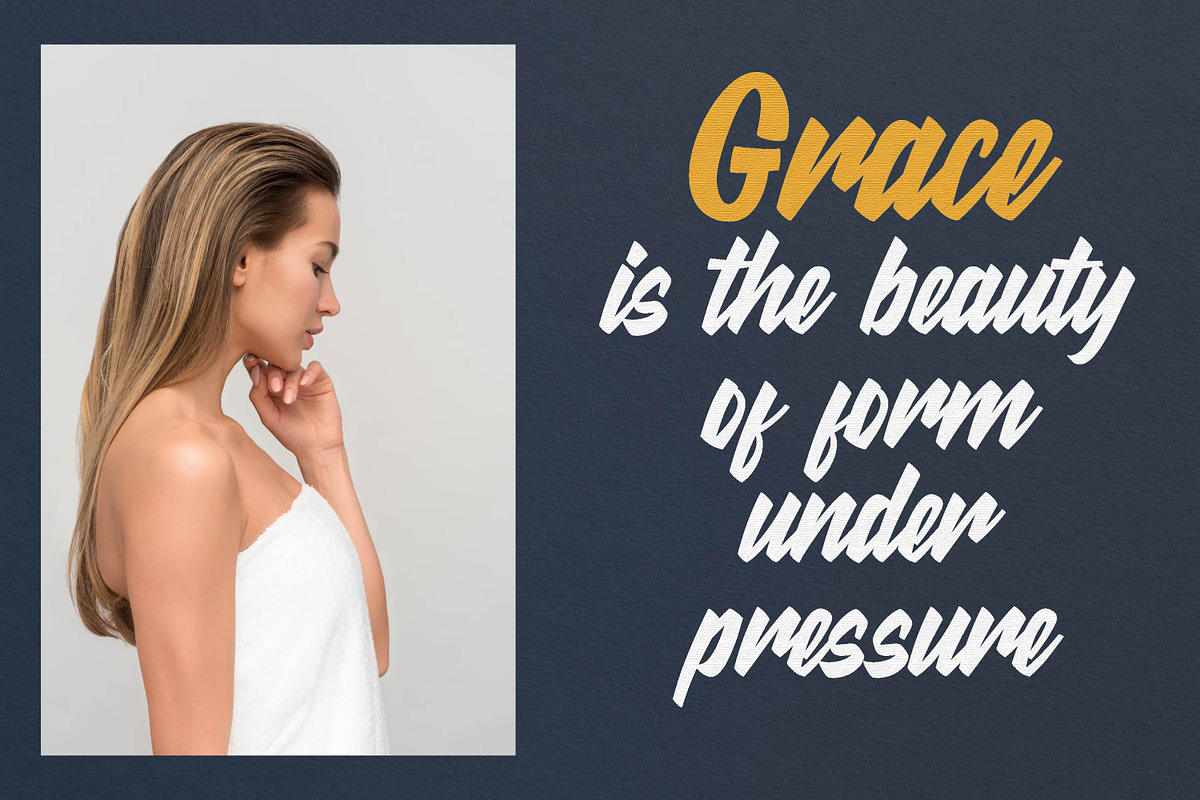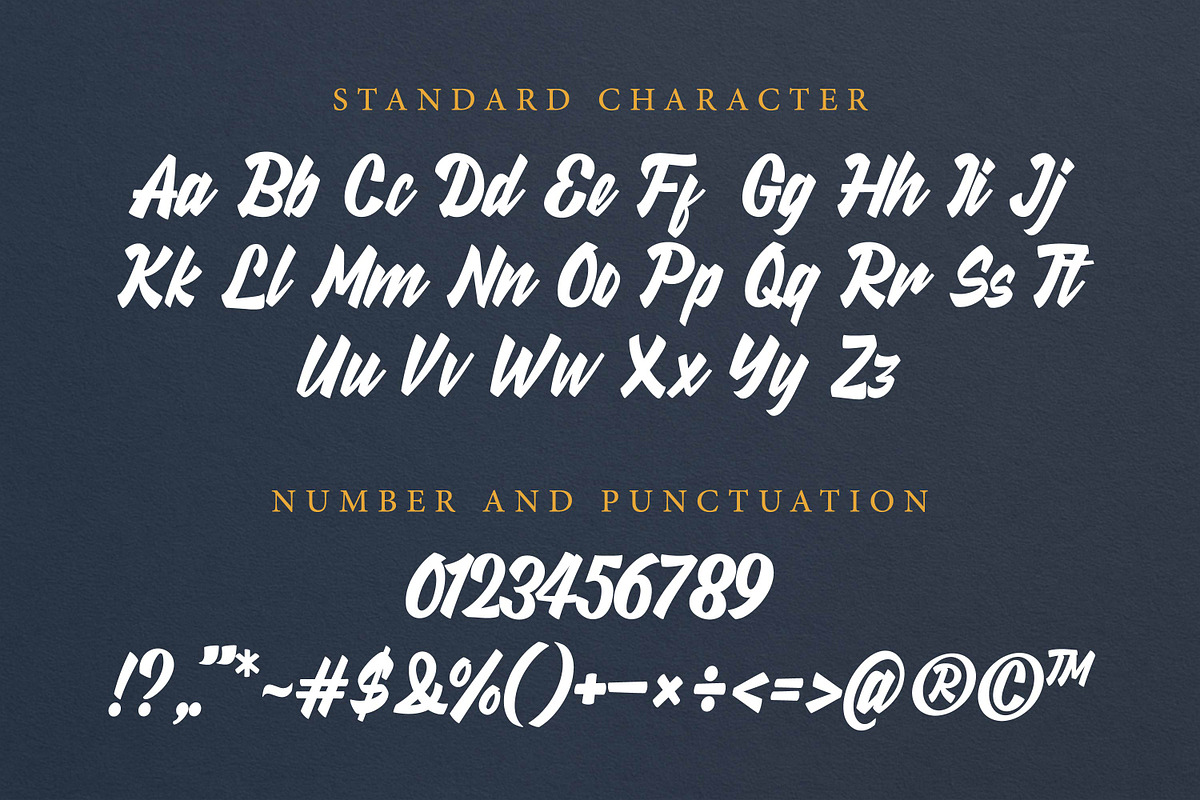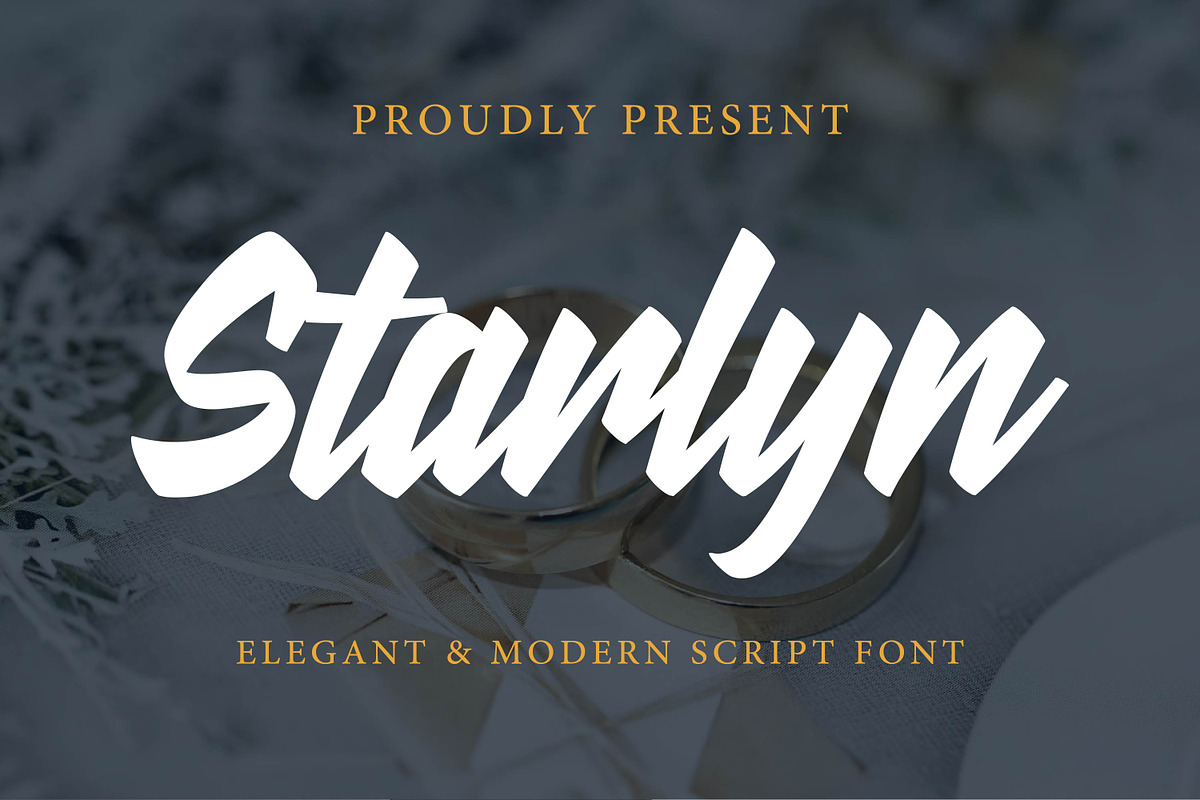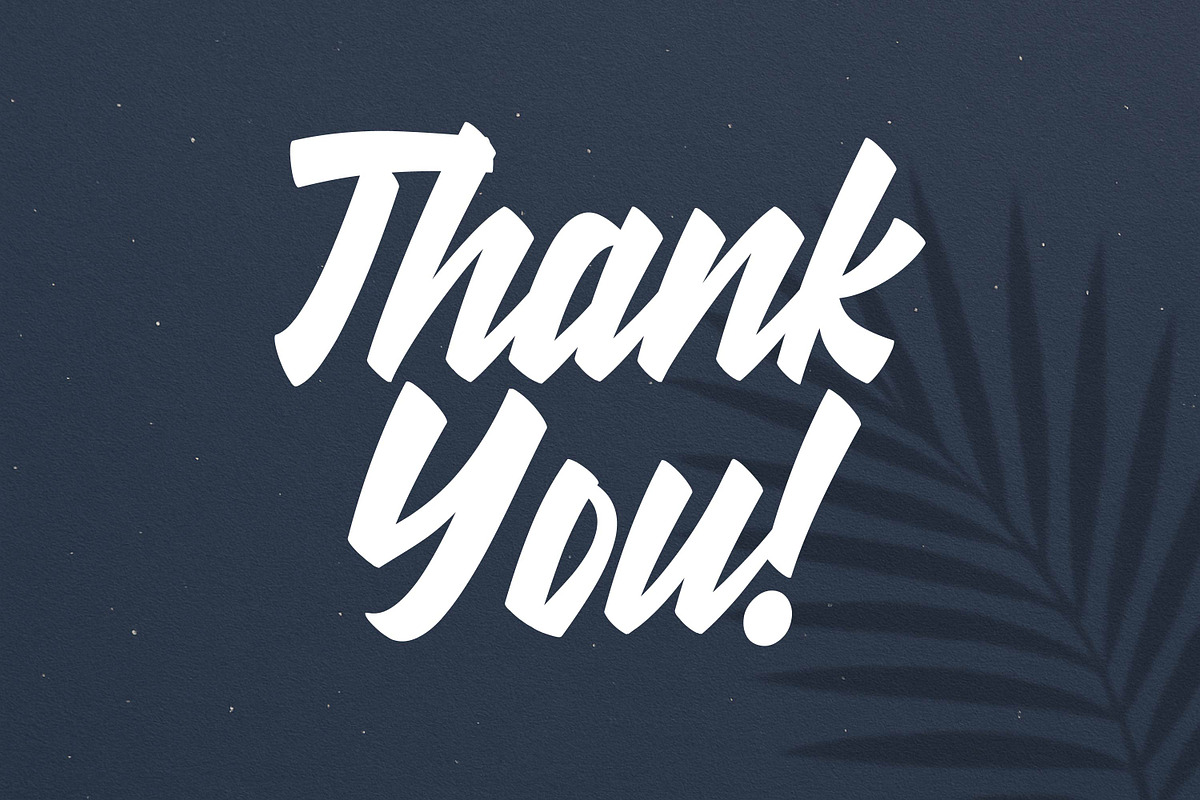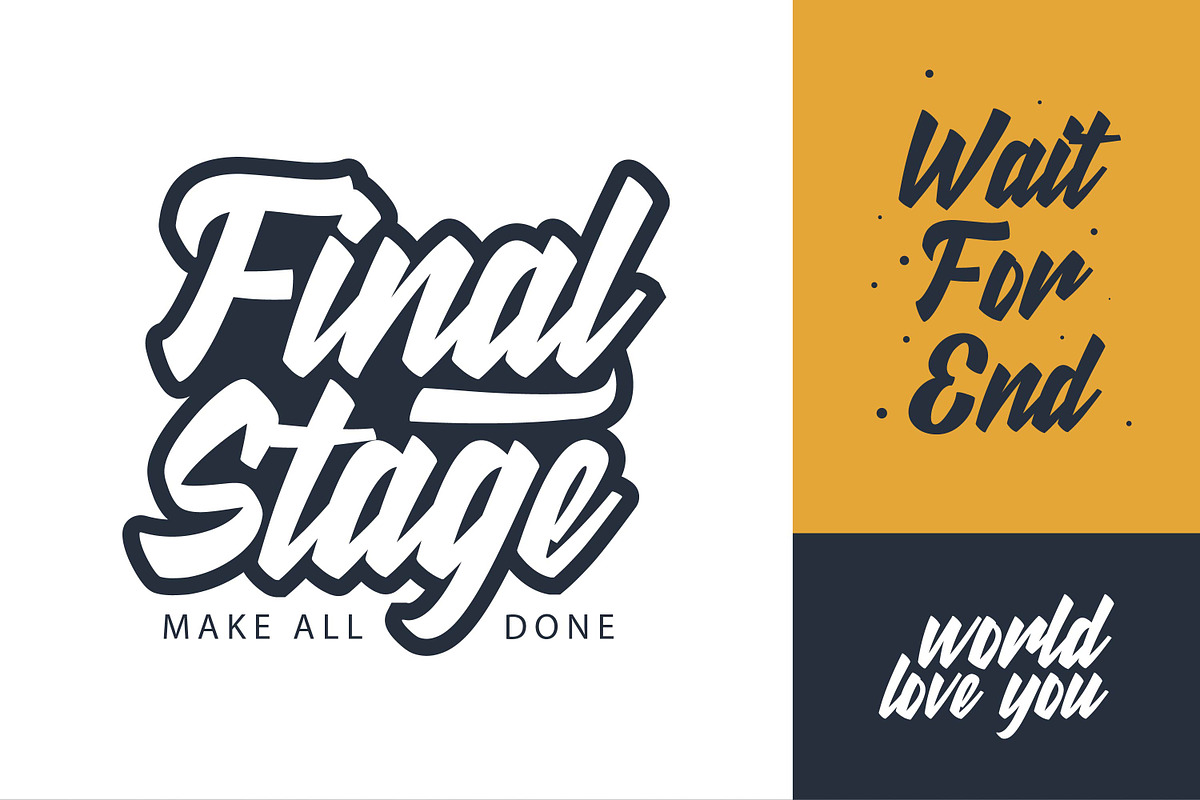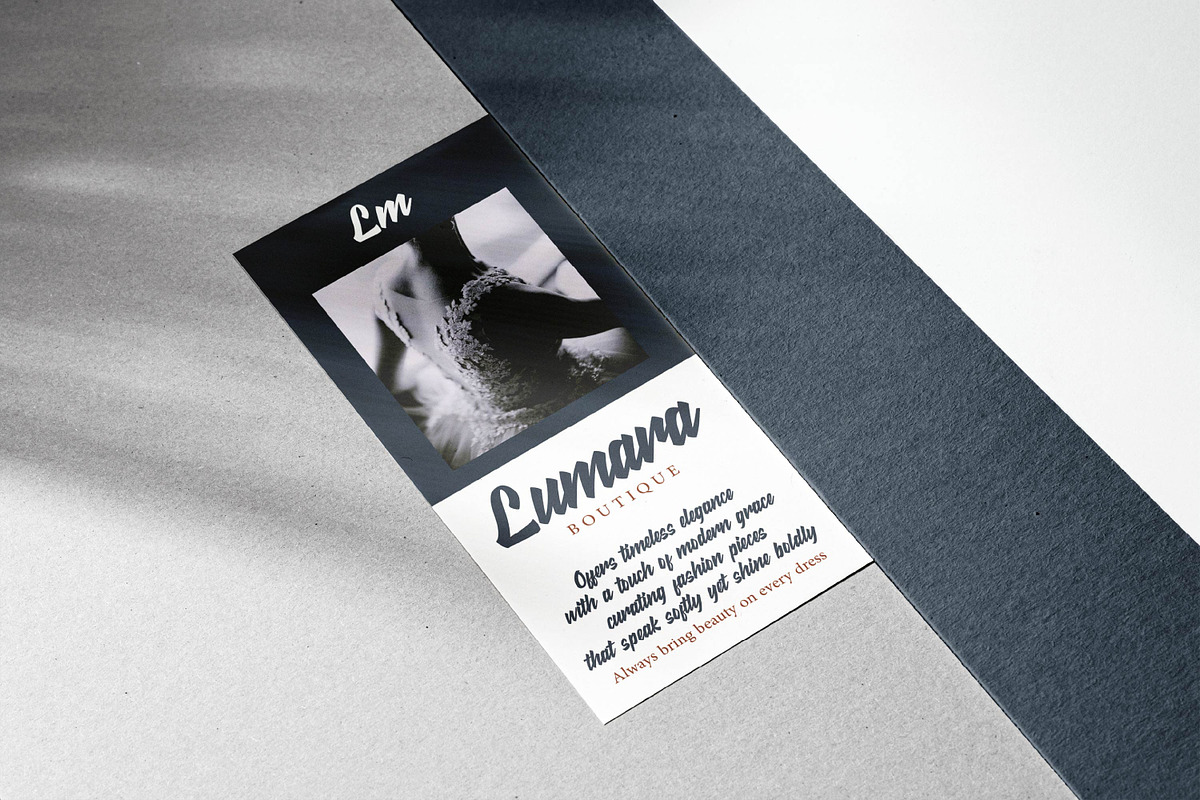
Starlyn - Stylish Script Font
Starlyn is a stylish script font that blends elegance with bold sophistication. Designed with sleek curves and confident slants, it’s perfect for wedding themes, premium logos, high-end fashion branding, and editorial layouts. The clean yet expressive character of Starlyn brings luxury, clarity, and visual impact to your design. Use it for invitations, packaging, or any creative work that deserves a standout, elegant voice.